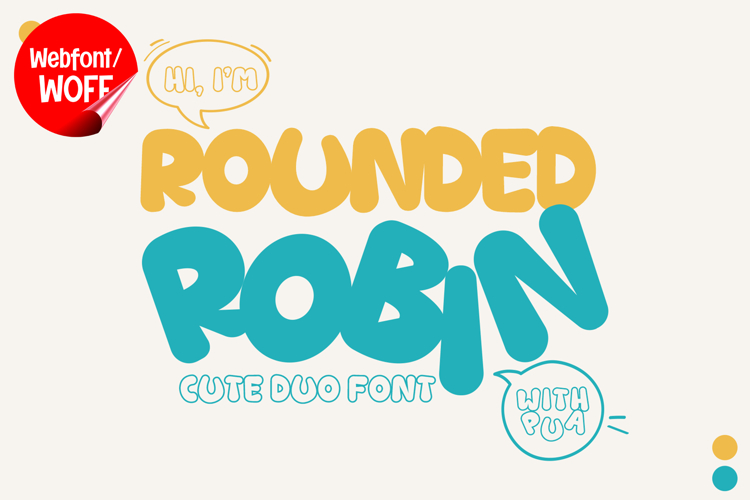
Rounded Robin | Cute Chubby Display Webfont for Fun Design
Rounded Robin is a cute and chubby display webfont designed to bring cheerful energy and playful personality into modern website design. Inspired by bubbly lettering, rounded cartoon typography, and fun decorative styles, this font features thick curves and soft shapes that create a warm and engaging visual identity. It is an excellent choice for projects that aim to deliver a friendly, colorful, and visually appealing typographic appearance.
Rounded Robin includes a complete set of uppercase characters designed with cute chubby display aesthetics. The letterforms feature bold rounded edges, playful proportions, and soft curves that create a lively and adorable appearance. These characteristics make it ideal for headlines, banners, hero sections, invitations, product displays, and featured content where a fun and welcoming visual atmosphere is needed.
In addition to letters, the font includes numbers and punctuation, allowing flexible usage across various parts of a website. It works well for children’s websites, toy branding, candy packaging, lifestyle blogs, birthday invitations, creative campaigns, and social media graphics. Each character maintains a consistent chubby display style, ensuring a cohesive and unified visual identity throughout the design.
With multilingual support, Rounded Robin includes a wide range of accented characters, making it suitable for international websites and global audiences. This ensures content remains clear and visually consistent across different languages while preserving the cute and playful aesthetic.
The cute and chubby display style of Rounded Robin makes it especially suitable for kids’ brands, family-oriented websites, cartoon-themed projects, and colorful digital campaigns. Its rounded structure and thick appearance create a joyful atmosphere that helps websites stand out in visually competitive environments. The soft forms add warmth, creativity, and playful personality while maintaining a modern display style.
Despite its decorative and playful appearance, Rounded Robin is designed with readability in mind. The spacing and proportions are carefully balanced to ensure clarity, particularly in display sizes. This allows designers to use the font effectively for impactful headings and short content without sacrificing usability.
Rounded Robin is a webfont that combines cute display aesthetics with modern digital performance. Its rounded forms, cheerful character, and chubby style create a distinctive typographic presence that enhances website design. For projects that require a fun, adorable, and visually engaging display font, Rounded Robin offers a versatile and delightful solution.